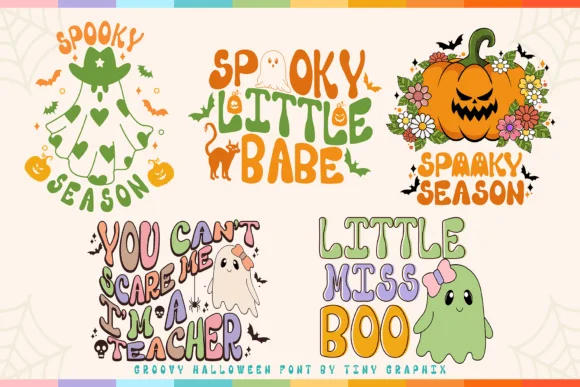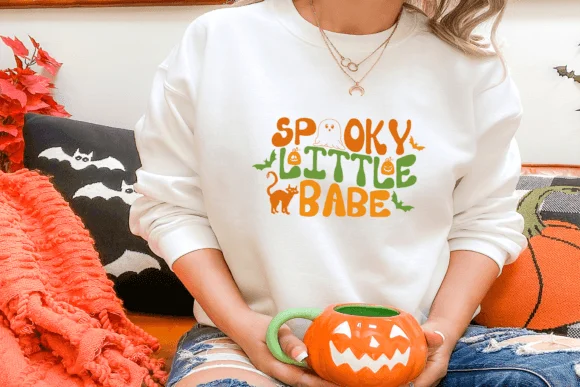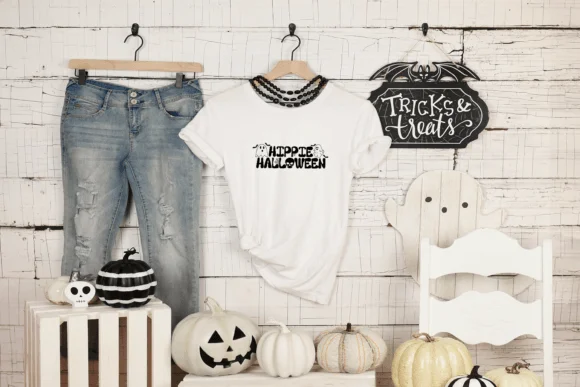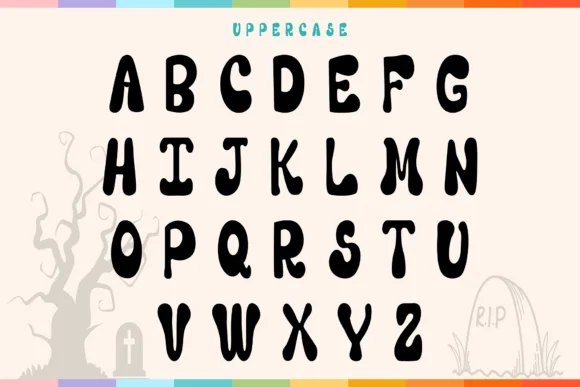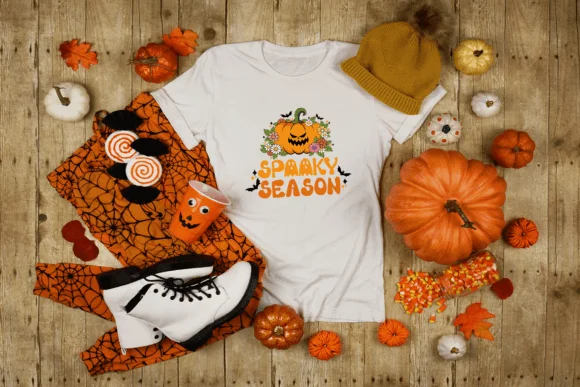
Groovy Halloween Font
This psychedelic font is perfect for retro Halloween parties, 70s horror celebrations, groovy costume events, vintage spooky decorations, psychedelic Halloween festivals, retro horror branding, funky Halloween marketing, disco monster parties, vintage terror displays, and far-out Halloween messaging materials.
Groovy Halloween Font is exciting because it brilliantly fuses the peace-loving, flower-power aesthetic of the 1970s with the spine-tingling thrills of Halloween through its organically flowing letterforms that capture the unique cultural moment when the groovy generation embraced both love and fear with equal enthusiasm. The font features smooth, psychedelic characters with swirling curves and cosmic details that evoke the era's fascination with the supernatural and otherworldly, incorporating peace-sign flourishes and rainbow elements twisted with spooky accents that create typography as mesmerizing and coolly frightening as a lava lamp casting eerie shadows in a darkened room. Each letter showcases the confident creativity and experimental spirit that made 70s Halloween celebrations so uniquely groovy, with flowing proportions and far-out details that transform ordinary text into expressions of peaceful terror that celebrate the fascinating intersection of counterculture cool and supernatural thrills that defined Halloween during the groovy era.
The Groovy Halloween Font family includes psychedelic style variations: Regular, Bold, Light, Far-Out, and Cosmic versions. The collection features special groovy elements including peace sign accents, flower power flourishes, rainbow swirls, and psychedelic ornaments. Additional components include groovy borders, far-out frames, psychedelic decorations, and coolly spooky ornamental designs that enhance the font's groovy Halloween appeal and create cohesive retro horror themes.
Vintage party planners and retro horror enthusiasts will find Groovy Halloween Font to be a perfect resource for creating authentically far-out Halloween communications that celebrate the unique charm and cool terror of 70s Halloween culture. This psychedelically crafted font transforms ordinary Halloween messaging into groovy expressions that resonate with audiences who appreciate the fascinating blend of peace, love, and spooky thrills that made groovy Halloween celebrations such a uniquely cool and memorably far-out experience.
The typeface includes comprehensive character support with psychedelic styling that maintains excellent readability while conveying the cool vibes and groovy atmosphere of retro Halloween celebrations. The font's far-out design ensures authentically groovy results across both nostalgic applications and contemporary retro-themed Halloween productions.
Perfect for retro Halloween parties, vintage horror events, groovy celebrations, and far-out seasonal marketing, this font delivers coolly psychedelic visual impact that communicates peace, love, and the groovy terror that made 70s Halloween such a uniquely cool and unforgettably far-out celebration of supernatural grooviness.